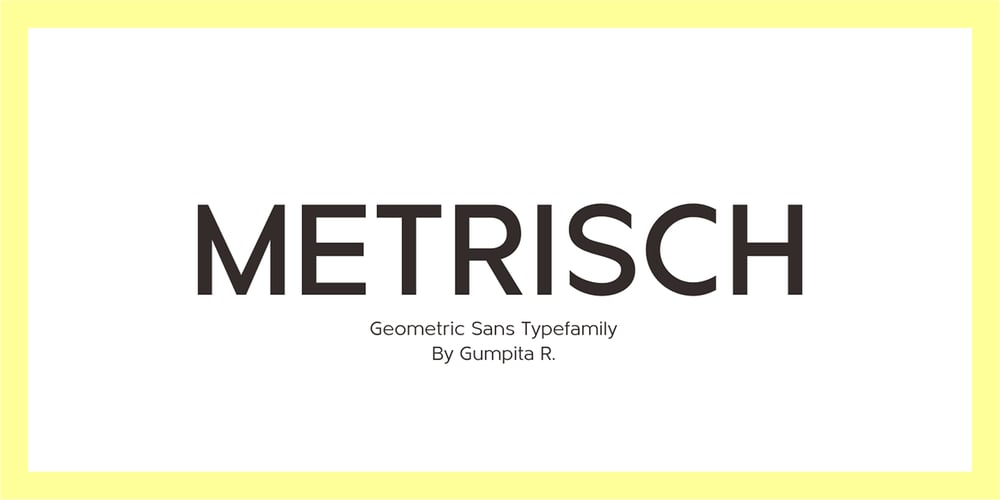
Metrisch Font Family was designed by Gumpita Rahayu and published by Gumpita Rahayu. Metrisch contains 12 styles and family package options. Metrisch is new sans serif typefamily of seven weights plus seven italics uprights in each weights. The typefaces designed based on traditional geometric construction that have been built with letter size wider, the x-heights taller and short descender that almost proportioned with the basic letter shape. With little details added like clean vertical cuts on the terminals and optimized sharp corners that makes this fonts smooth and refined looks. It was represents the flavor of the most common humanist typefaces style and grotesk feels. The weights comes from extra light to extra bold suitable to make display appearance, and the book and medium weights also works well as small/medium text sizes to accompany your design, such as editorial fashion magazine, solid headline, websites heading, poster, advertising, logo, signage, etc Also, Metrisch type-family fully loaded with OpenType features such as some stylistic alternates, case-sensitive forms, fractions, small capitals,and another most common numerals features such as super & subscript, tabular & oldstyle figures, numerator-denominator, and has more extended latin diacritics characters.